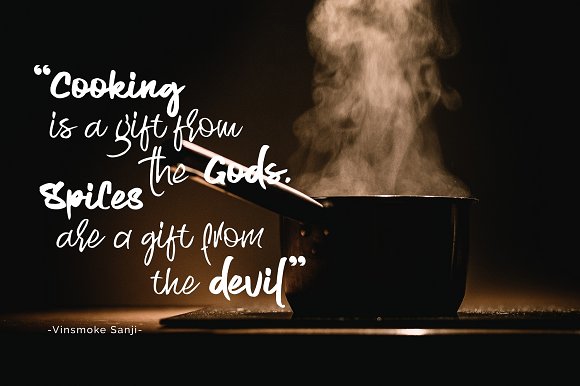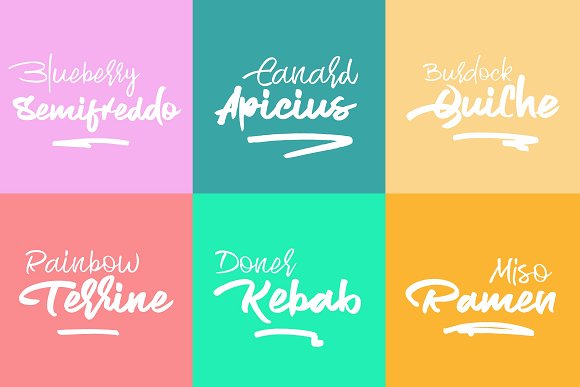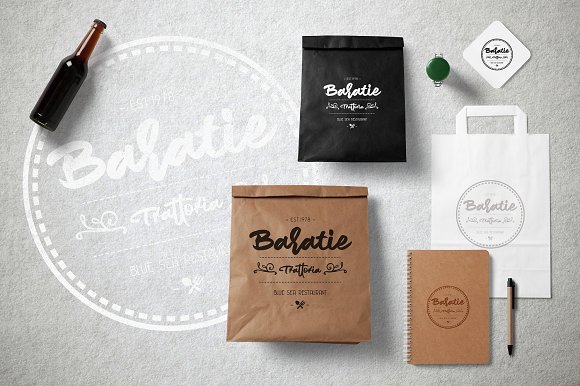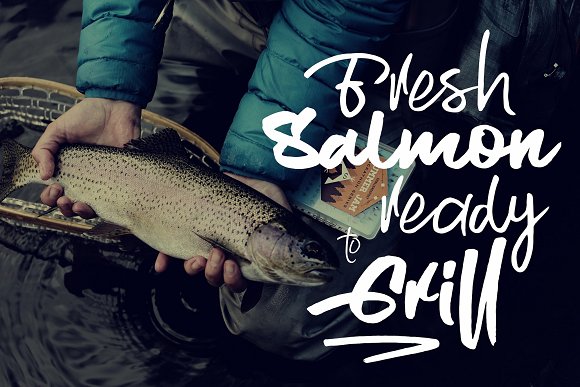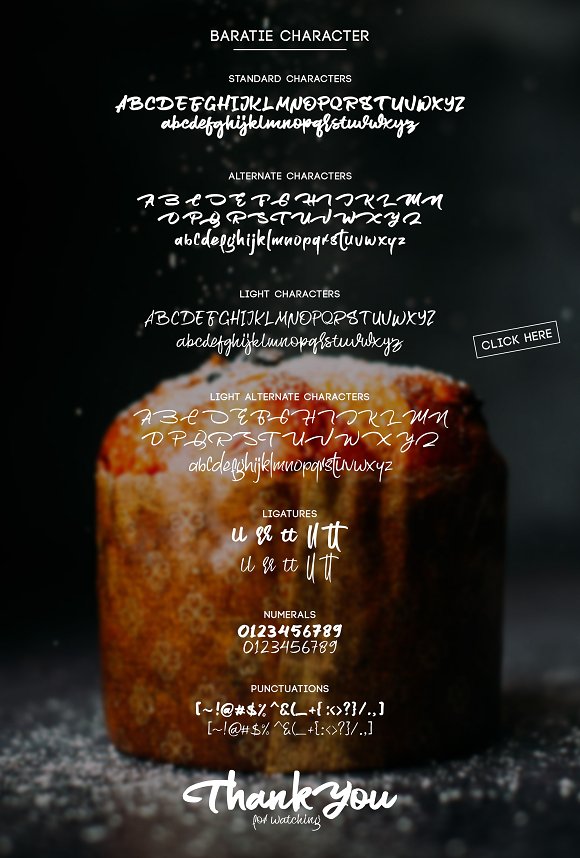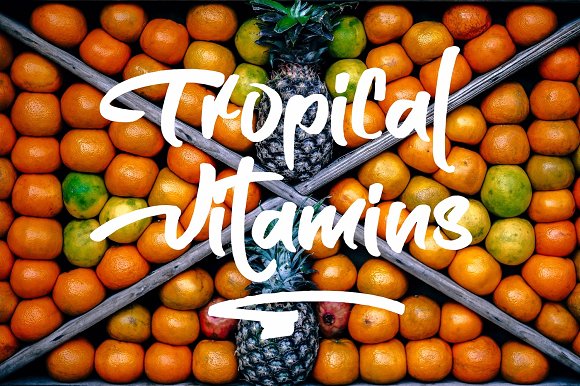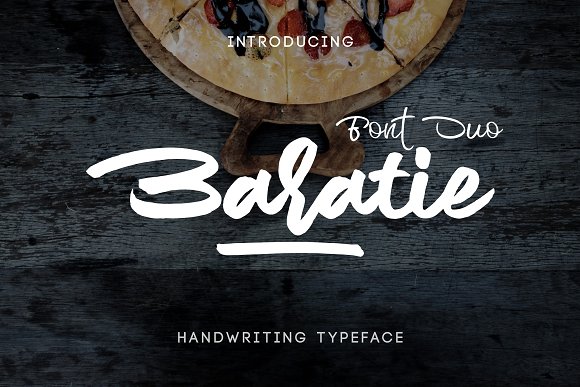
Baratie Script Font
This is my recently font ‘Baratie’ made from my originally handwriting for any typhography dry handbrushed, designed to combine perfectly and allow you to create stunning hand-lettering quickly and easily. Ideal for logos, handwritten quotes, product packaging, header, poster, merchandise, social media & greeting cards.